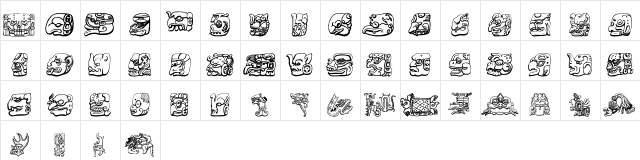
Mayan Normal
Design Context for Mayan Typeface
Mayan is a composed and adaptable typeface that performs quietly and consistently across a wide range of design contexts.